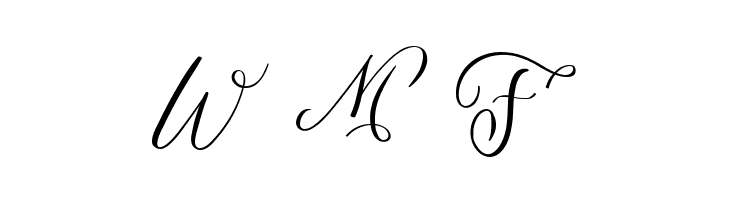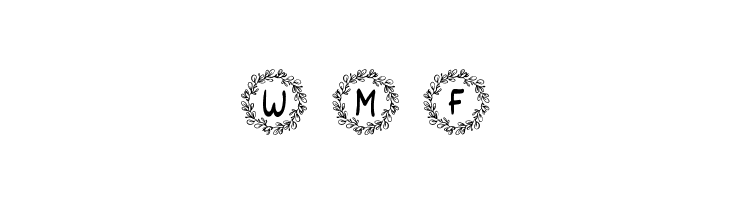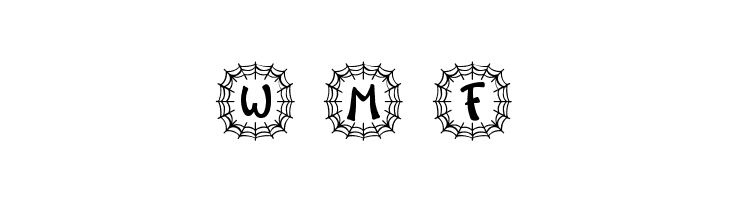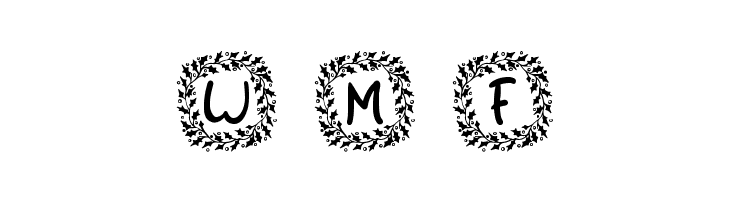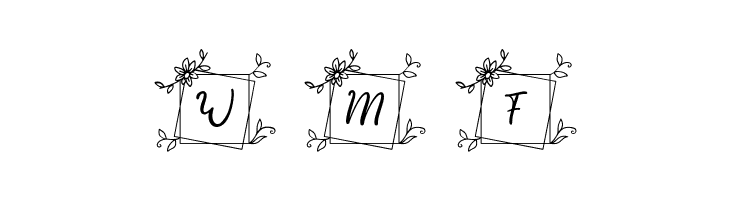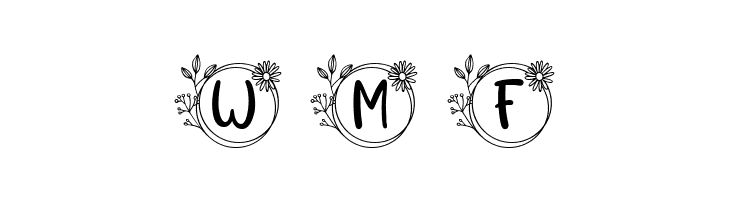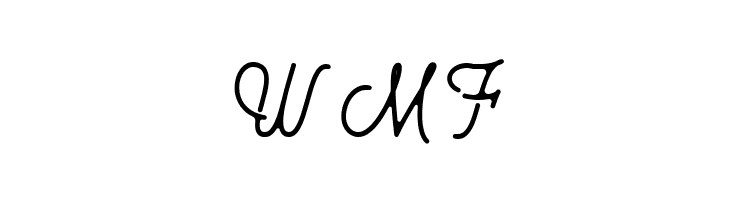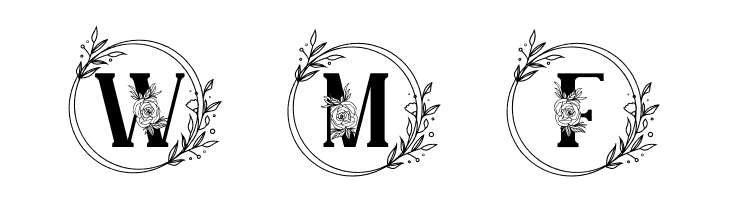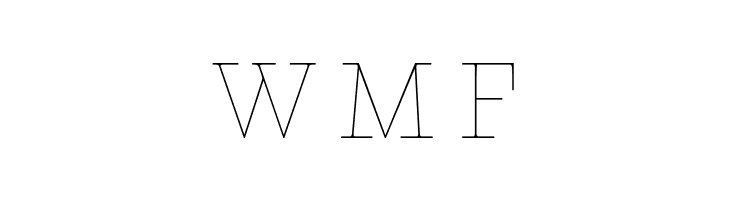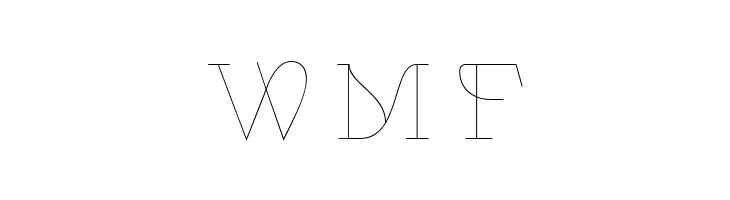
An elegant script font with intricate swirls and flourishes.
An elegant script font with intricate, flowing lines and elaborate swashes.
A graceful monoline script font with fluid, elegant strokes.
An elegant monogram font with letters encased in ornate floral wreaths.
A decorative font with bold letters encased in thorny, circular borders.
A decorative font with uppercase letters in leafy wreaths, perfect for festive projects.
A decorative font with letters encased in wreath-like designs, ideal for festive themes.
A decorative monogram font with uppercase letters encased in festive wreath designs.
A decorative font with floral frames around each character, ideal for elegant designs.
An elegant, decorative font with floral wreaths encasing script-like characters.
A decorative font with floral monogrammed letters and a whimsical, elegant style.
A graceful monoline script font with elegant, flowing curves.
A monoline, rounded script font with a casual, handwritten style.
A bold, angular font with a geometric and modern design.
A bold, geometric font with sharp angles and a monogram-like style.
A bold, geometric monogram font with sharp angles and industrial flair.
An elegant script font with intricate swashes and decorative flourishes.
A monogram-style font with bold serif letters encased in decorative circular frames.
A graceful monoline script font with fluid, cursive strokes.
An elegant and decorative font with intricate swirls and flourishes.
A decorative font with floral elements integrated into uppercase letters.
A graceful monoline script font with consistent stroke width and elegant curves.
A playful monoline script font with smooth, continuous strokes and rounded edges.
A monoline script font with a smooth, flowing, handwritten style.
A monoline script font with smooth, flowing characters and consistent stroke width.
A bold, monoline script font with smooth curves and consistent stroke width.
An ornate and decorative font with butterfly and floral motifs.
An elegant monoline italic typeface with a refined and fluid appearance.
A clean, elegant monoline font with consistent stroke widths and a modern aesthetic.
A delicate monoline font with elegant, consistent strokes and geometric structure.
A monoline font with elegant curves and artistic flair, blending traditional and modern elements.
A modern, monolinear font with geometric shapes and consistent stroke widths.
A playful monoline script font with smooth, continuous strokes and a handwritten feel.
A playful, monoline handwritten font with fluid, connected letters.